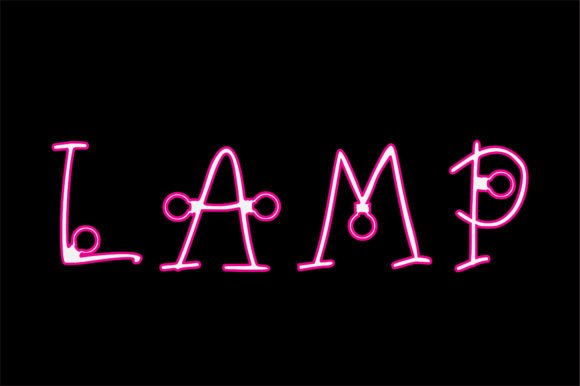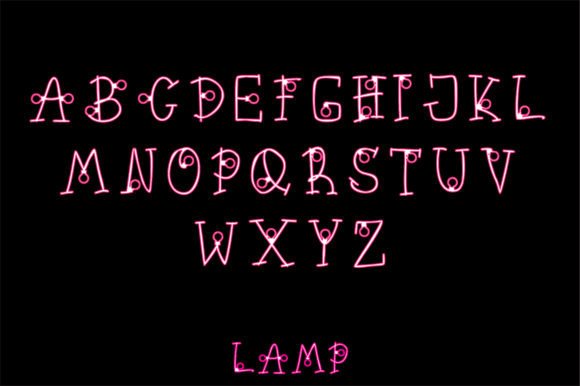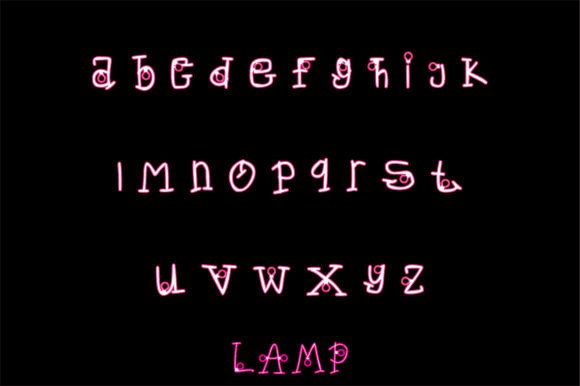
Lamp Font
About Lamp Font
“Lamp” is a delightful and whimsical handwritten font designed to bring a sense of fun and quirkiness to various design projects. Its versatility makes it an excellent choice for a wide range of applications, including logos, quotes, advertisements, prints, magazines, and more.
The playful and quirky nature of “Lamp” is evident in its unique letterforms, which add character and charm to any text. The font’s handcrafted style contributes to a friendly and approachable aesthetic, making it suitable for projects that aim to convey a lighthearted or creative vibe.
Given its adaptability, “Lamp” offers designers the flexibility to use it in diverse contexts. Whether you’re working on branding materials, promotional content, or editorial designs, this font can inject a touch of personality and playfulness into your creations.
Consider “Lamp” as a go-to choice when you want to infuse your designs with a sense of whimsy and fun. Its distinct style can make your text stand out and create a memorable visual impact in a variety of design applications.